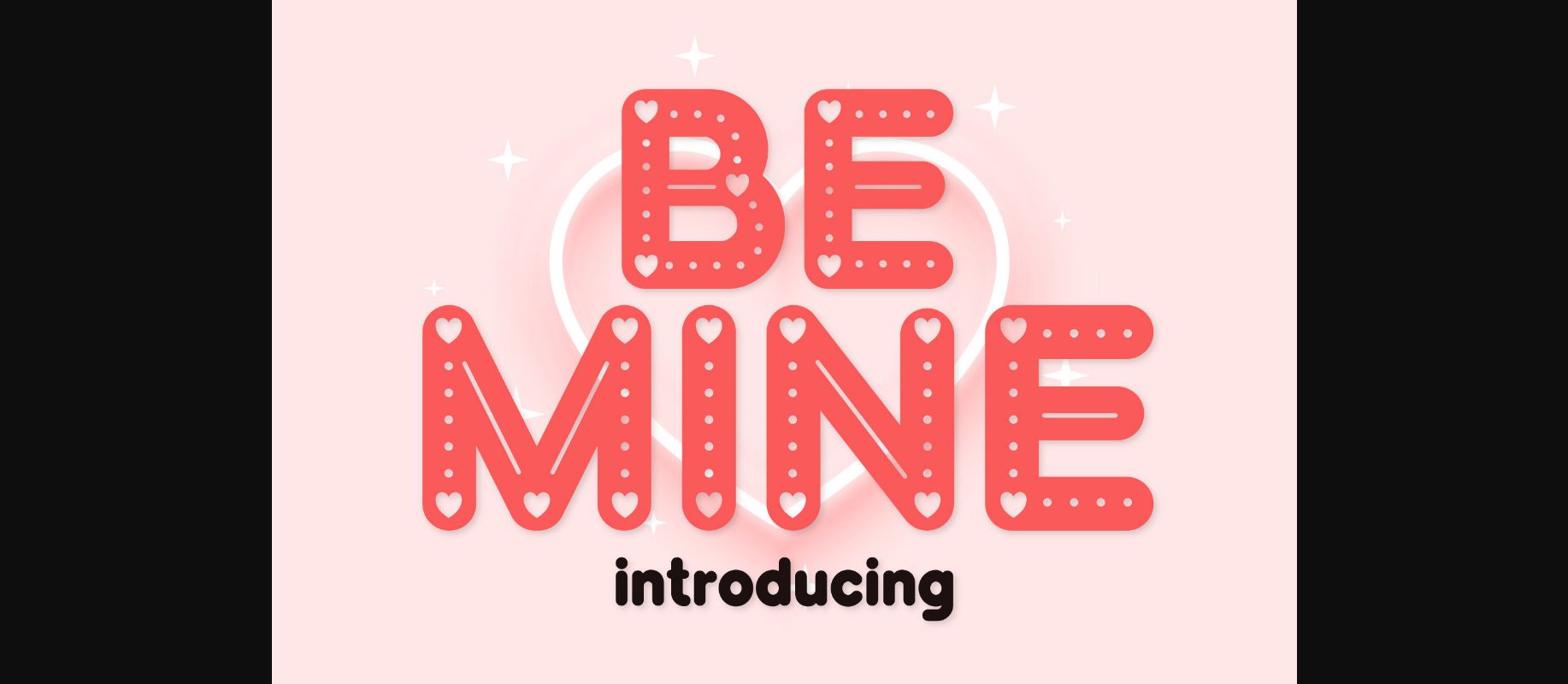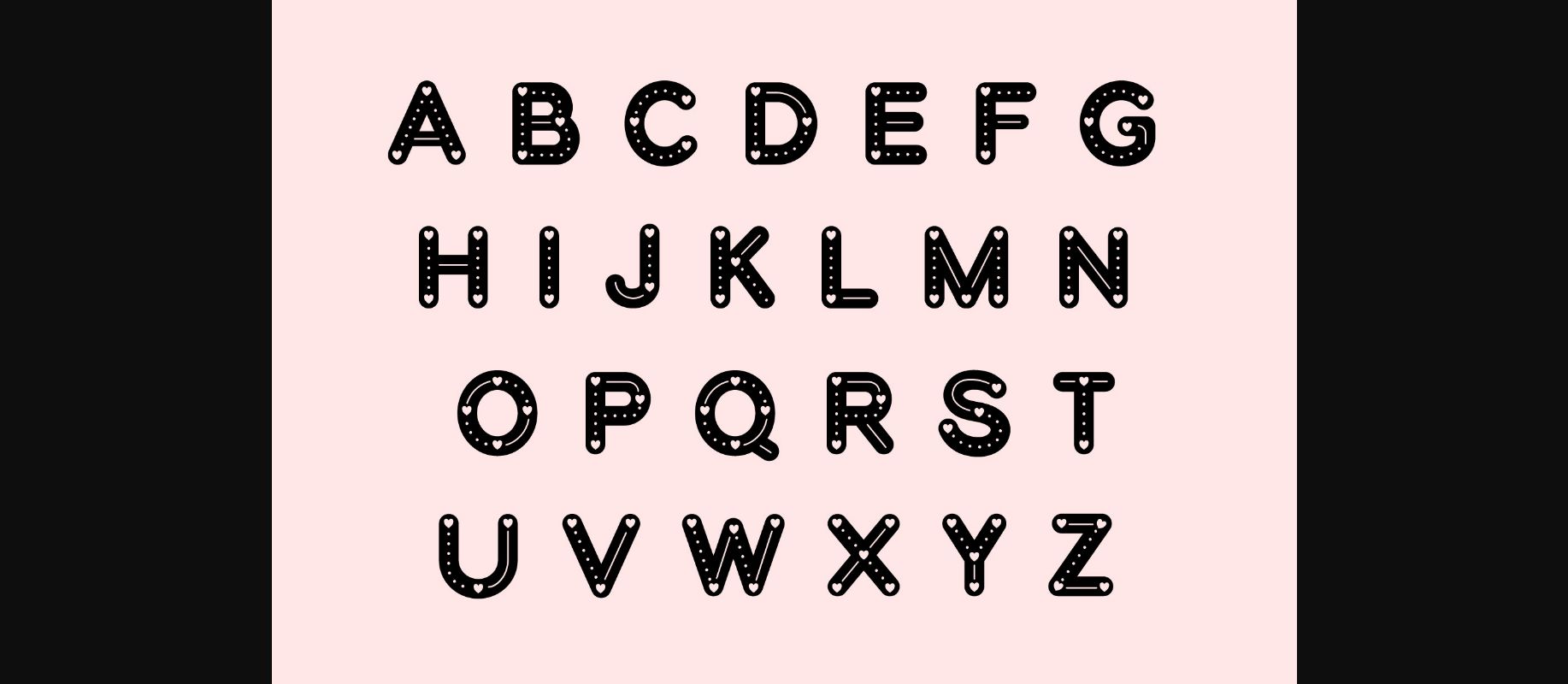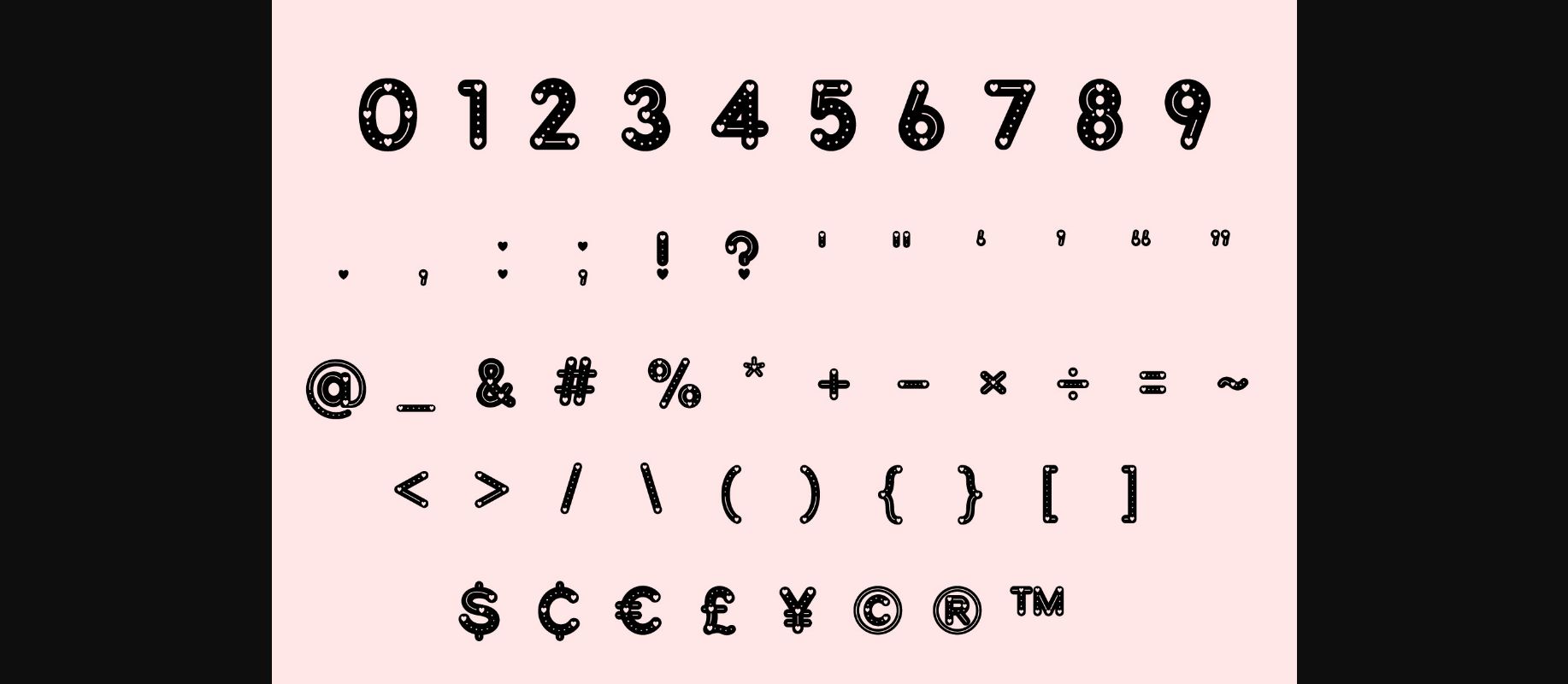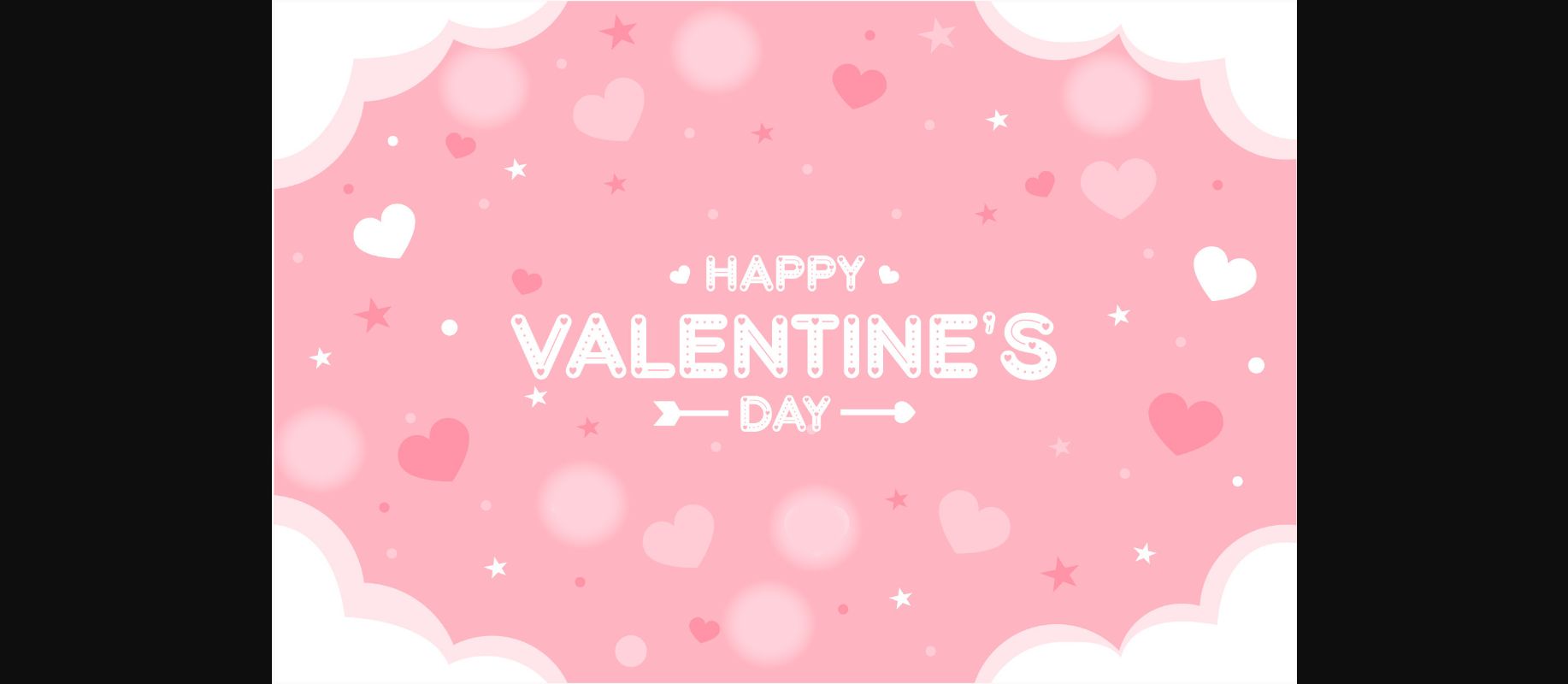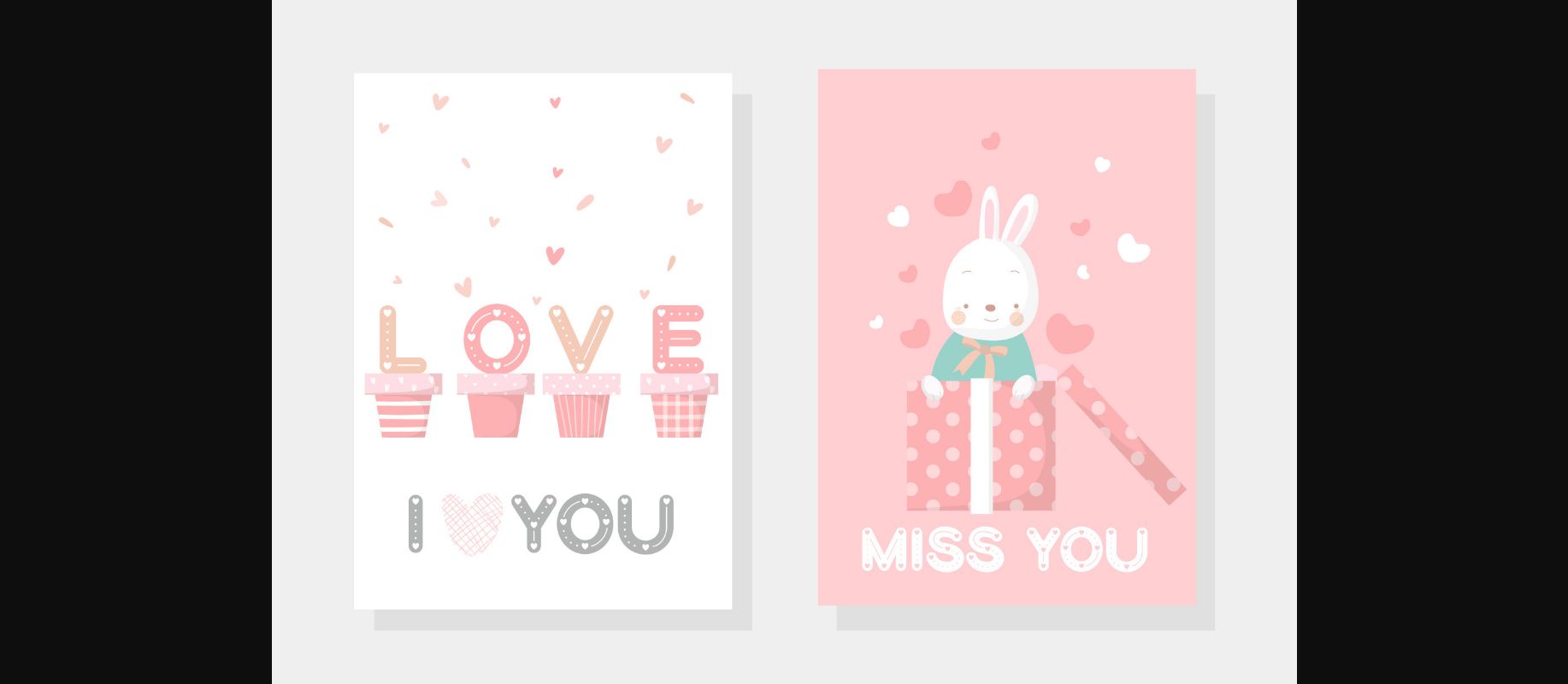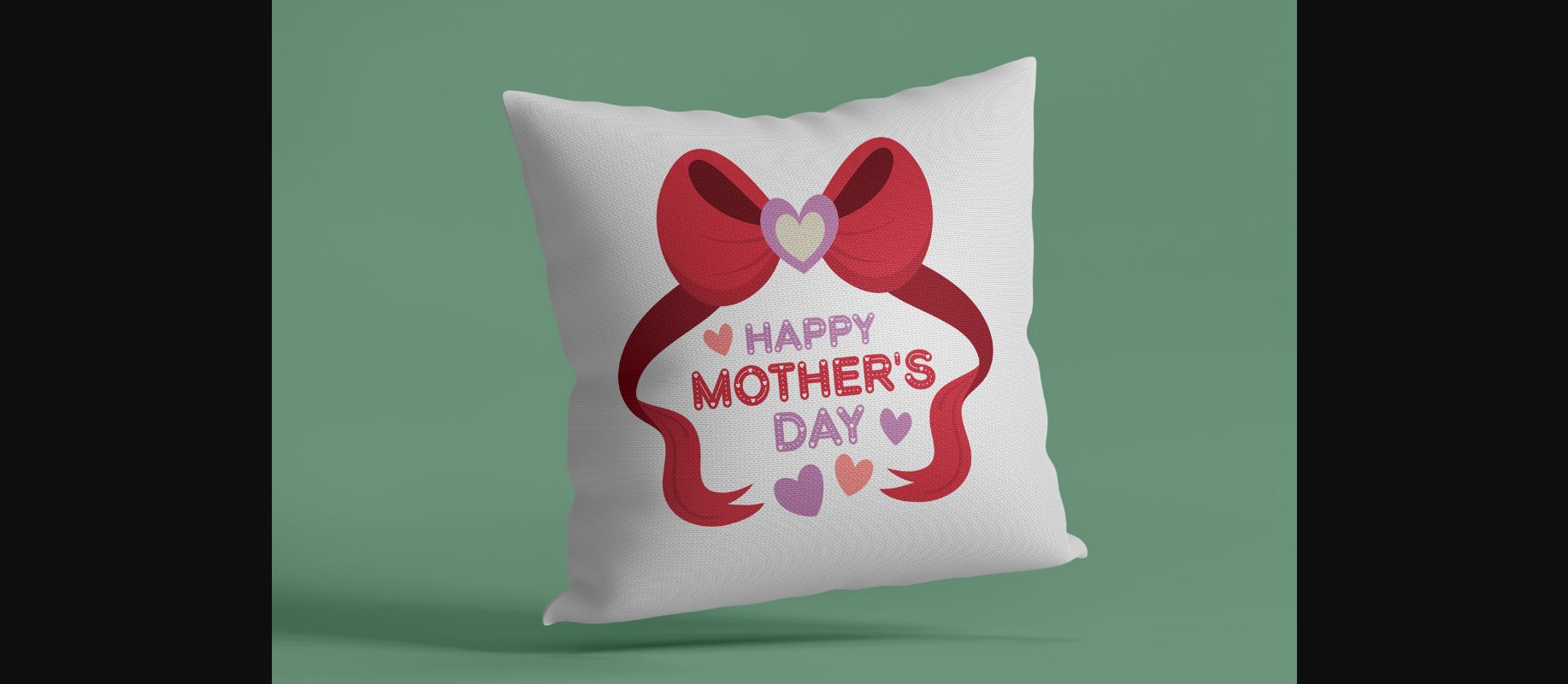
Be Mine Font
About Be Mine Font
Be Mine is a decorative font that is cute, bright, and fun. It is perfect for Valentine’s or Mother’s Day designs, especially when combined with bright and pastel colors. Add this beautiful font to each of your creative ideas, and notice how it makes them stand out!